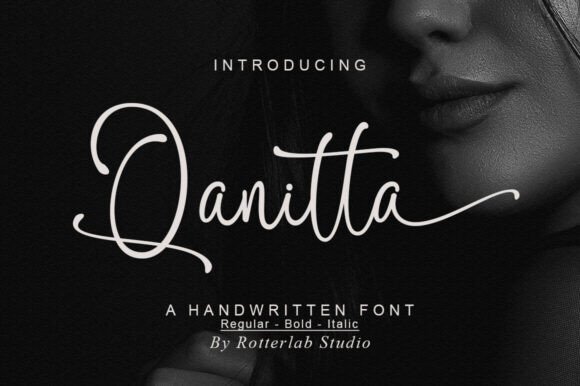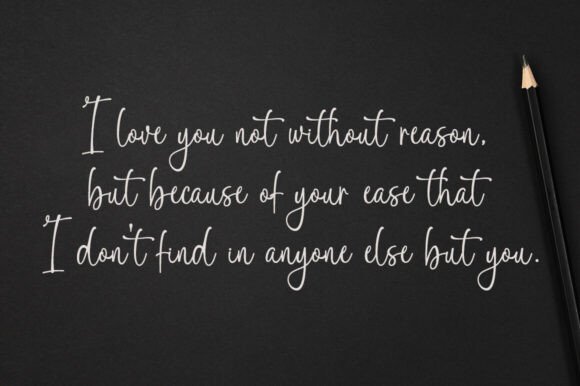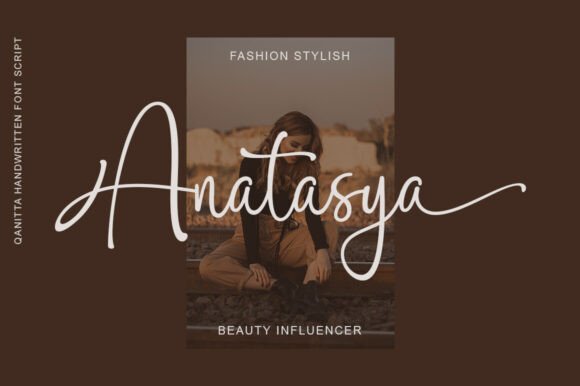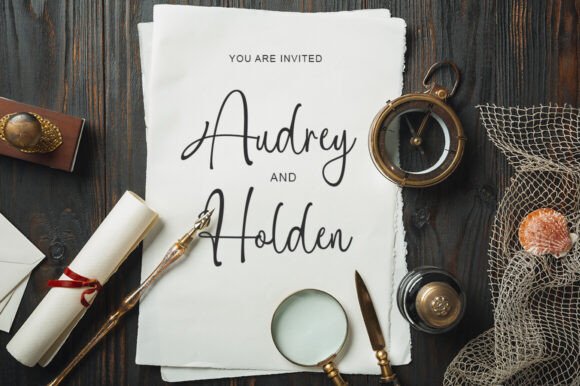
Qanitta Font
About the Qanitta Font
From logos to headlines, the Qanitta Font is the perfect choice for making a lasting impression. Qanitta is an elegant script font with a contemporary atmosphere and impeccable form, inspired by timeless classic calligraphy. Not too thin and not too thick, balanced and varied, this font was designed to enhance the beauty of your projects.
Qanitta’s elegant yet contemporary feel makes it ideal for projects requiring a touch of sophistication. It excels in headlines, logos, short-form text on invitations or packaging, and even select elements within branding materials. Avoid using it for large blocks of body text or UI elements where readability is paramount; its script nature hinders quick comprehension in extended passages.
Pairing Qanitta with a clean sans-serif like Lato or Open Sans provides a strong contrast and enhances readability when used together. For a more traditional feel, a serif typeface such as Garamond or Playfair Display could complement its classic calligraphy influences. Geometric sans-serifs might also create a striking modern juxtaposition.
Its overall personality is sophisticated and refined, lending itself to brands focused on luxury goods, high-end services, or special events. The balanced strokes prevent it from feeling overly fussy or delicate, making it suitable for both feminine and slightly more masculine applications.
Qanitta Font Usage Examples
Qanitta Font Example